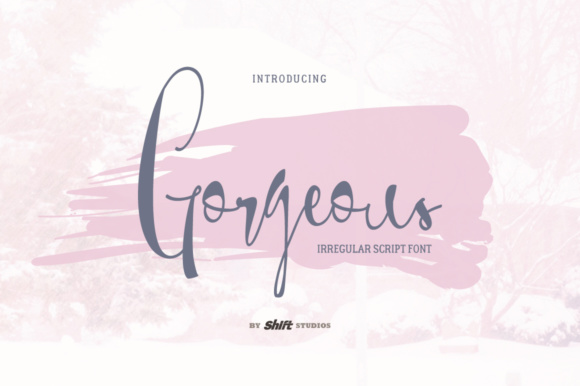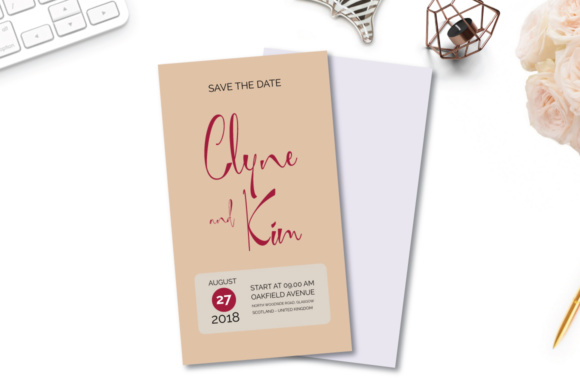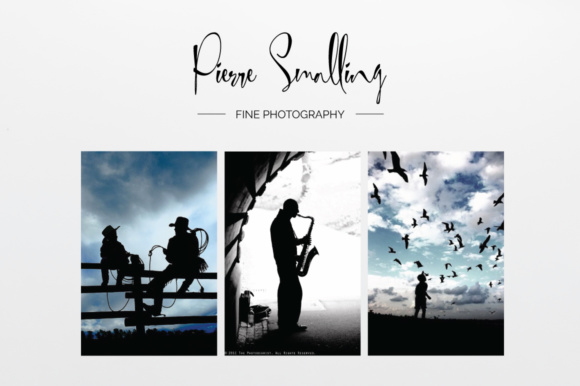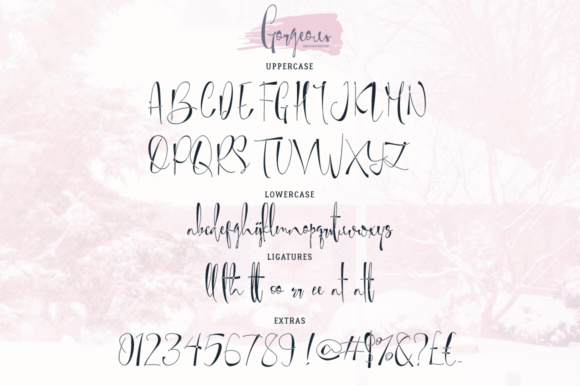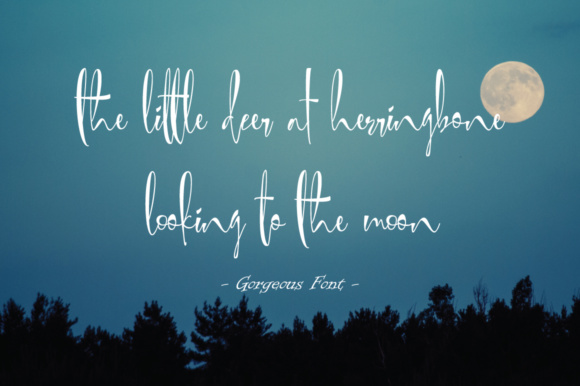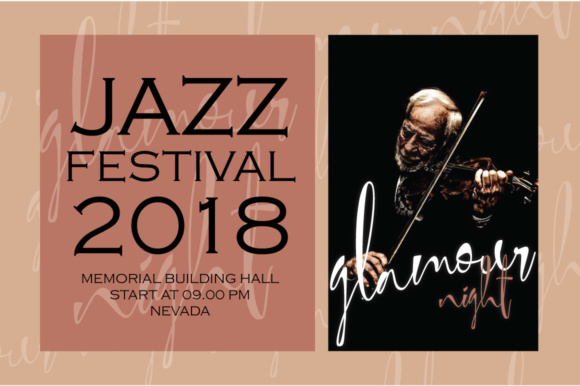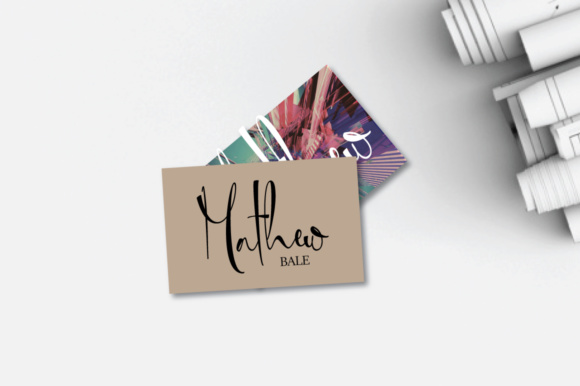
Gorgeous Font
About Gorgeous Font
Gorgeous is a beautiful, inky irregular script font. This handwritten font was created specifically to give your designs a real, semi-abstract feel that feels distracted yet fashionable.